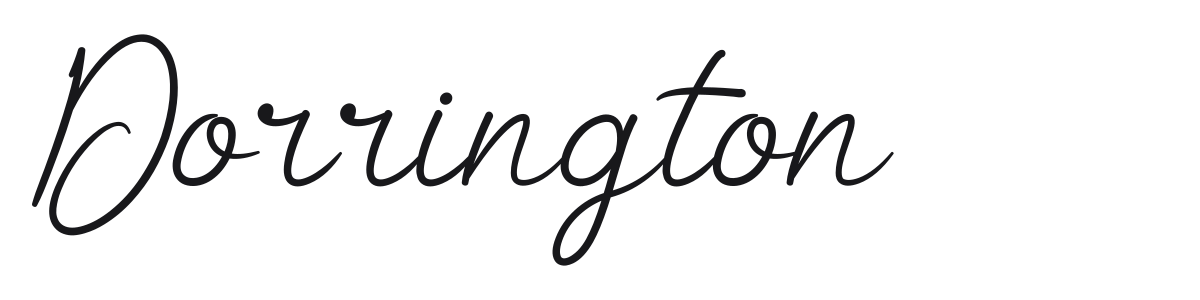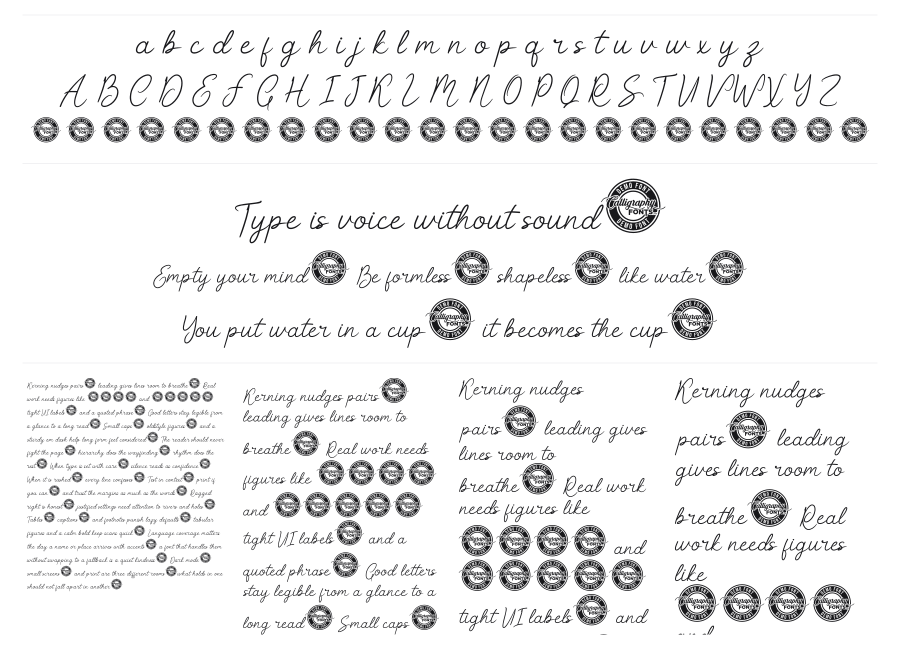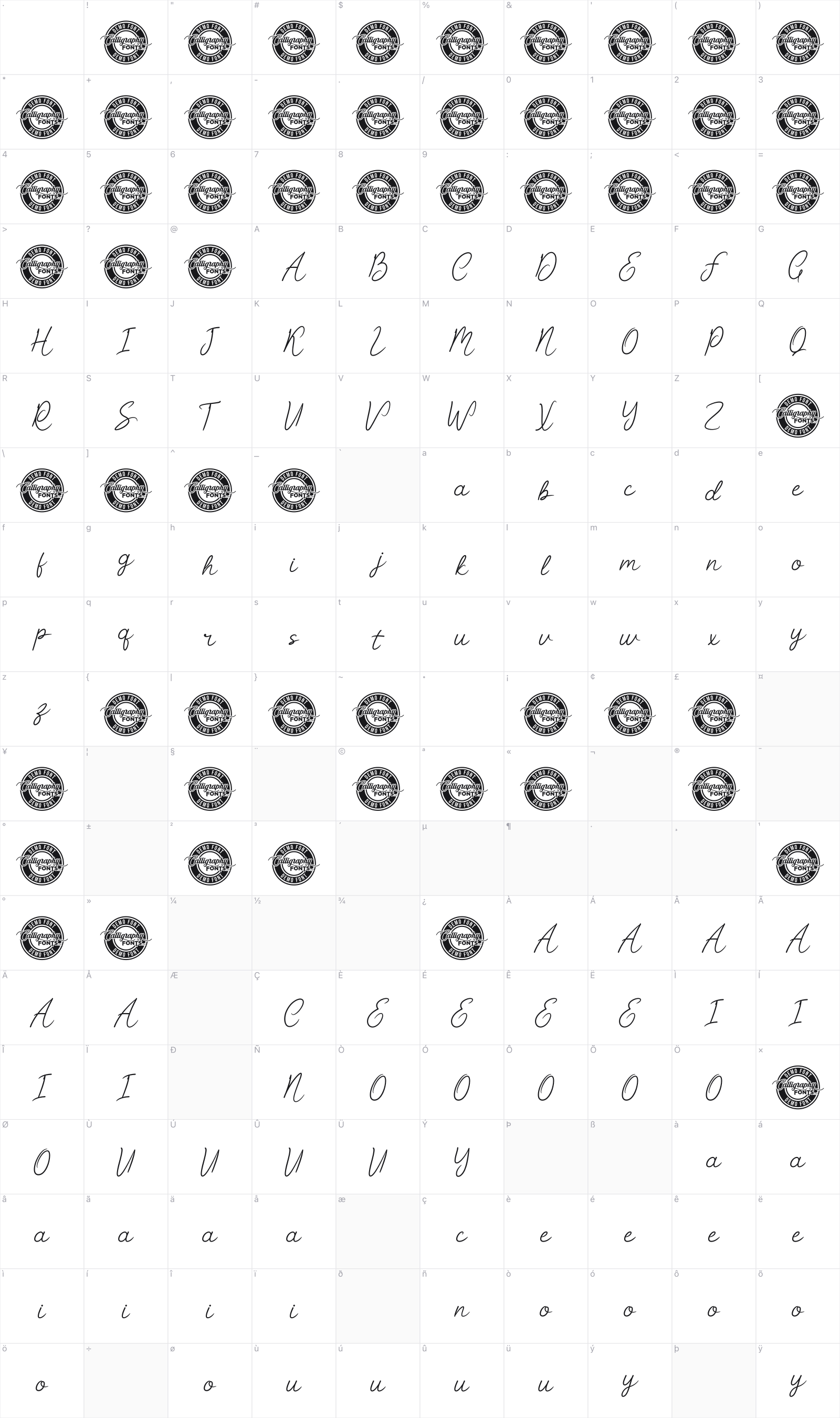
Dorrington
Dorrington is a casual connected script with a breezy, handwritten quality and near-monoweight strokes. Long linking strokes and looped ascenders give words a continuous, flowing rhythm that feels natural rather than constructed. It works well at headline sizes for branding, packaging, and any project that needs a personal, approachable touch.